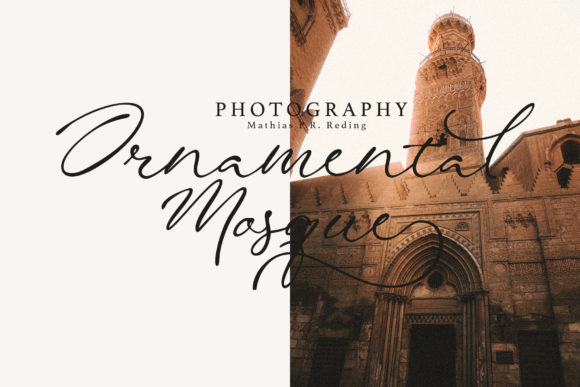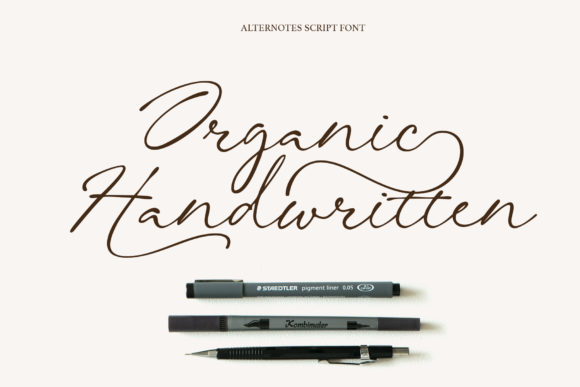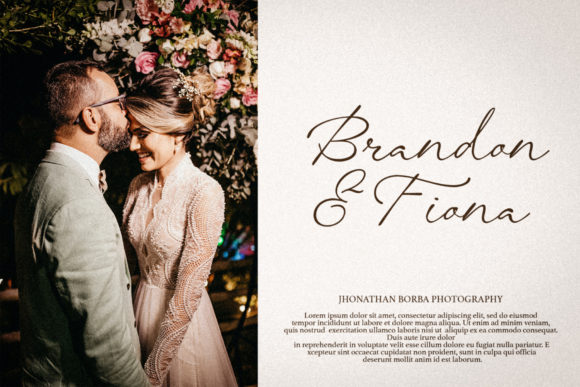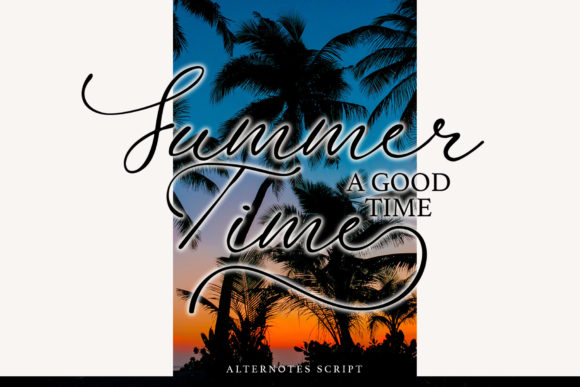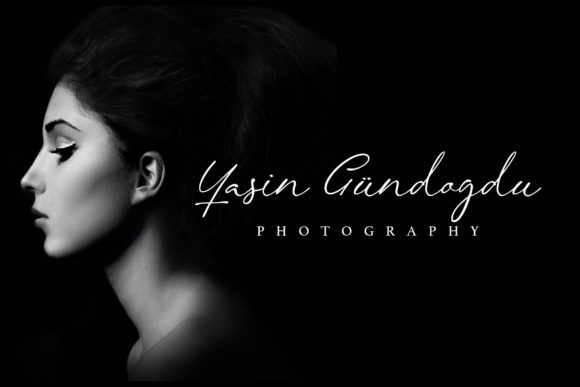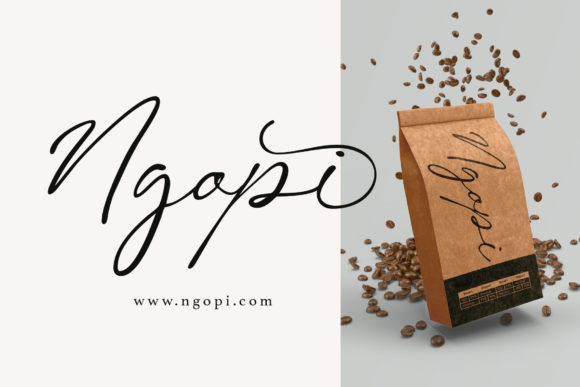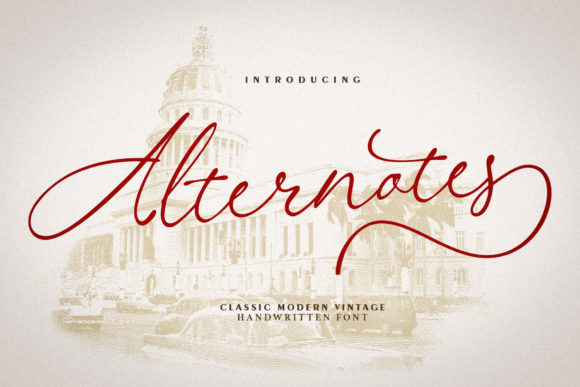
Introducing Alternotes Font: The Playful and Charming Script Font You Need
Are you tired of using the same old fonts in your designs? Do you want to add a touch of playfulness and charm to your creations? Look no further than Alternotes Font, a lovely script font that is sure to refresh and revitalize your designs. In this article, we’ll take a closer look at Alternotes Font, its features, and how you can use it to take your designs to the next level.
What is Alternotes Font?
Alternotes Font is a beautiful script font that is designed to add a touch of whimsy and charm to your designs. With its flowing lines and elegant curves, this font is perfect for a variety of design projects, from invitations and greeting cards to branding and advertising materials. Alternotes Font is particularly crafted for those who need a beautiful and refreshing look to their designs, making it an ideal choice for designers and crafters looking to add a unique touch to their work.
Key Features of Alternotes Font
So, what makes Alternotes Font so special? Here are just a few of its key features:
• Playful and charming design: Alternotes Font has a unique and playful design that is sure to capture the attention of your audience.
• Elegant curves and flowing lines: The font features elegant curves and flowing lines that give it a sophisticated and refined look.
• Highly legible: Despite its playful design, Alternotes Font is highly legible, making it perfect for use in a variety of design projects.
• Versatile: Alternotes Font can be used in a variety of design projects, from invitations and greeting cards to branding and advertising materials.
How to Use Alternotes Font in Your Designs
Alternotes Font is easy to use and can be incorporated into a variety of design projects. Here are a few ideas to get you started:
• Invitations and greeting cards: Alternotes Font is perfect for use in invitations and greeting cards, adding a touch of playfulness and charm to your designs.
• Branding and advertising materials: Use Alternotes Font to add a unique touch to your branding and advertising materials, such as logos, brochures, and flyers.
• Social media graphics: Alternotes Font can be used to create eye-catching social media graphics, such as Facebook posts and Instagram stories.
• Web design: Alternotes Font can be used in web design to add a touch of personality to your website.
Tips for Getting the Most Out of Alternotes Font
Here are a few tips for getting the most out of Alternotes Font:
• Experiment with different colors and textures: Alternotes Font looks great in a variety of colors and textures, so don’t be afraid to experiment and find the perfect combination for your design.
• Use it sparingly: Alternotes Font is a statement font, so use it sparingly to add emphasis and interest to your designs.
• Pair it with other fonts: Alternotes Font pairs well with a variety of other fonts, so don’t be afraid to experiment and find the perfect combination for your design.
Font Name Alternotes Font
Author senzana
Alternotes Font is a lovely script font that exudes playfulness and charm. With its elegant curves and flowing lines, this font is perfect for a variety of design projects, from invitations and greeting cards to branding and advertising materials. Whether you’re a designer or crafter, Alternotes Font is a great choice for anyone looking to add a unique touch to their work. So why not give it a try and see the difference it can make in your designs?